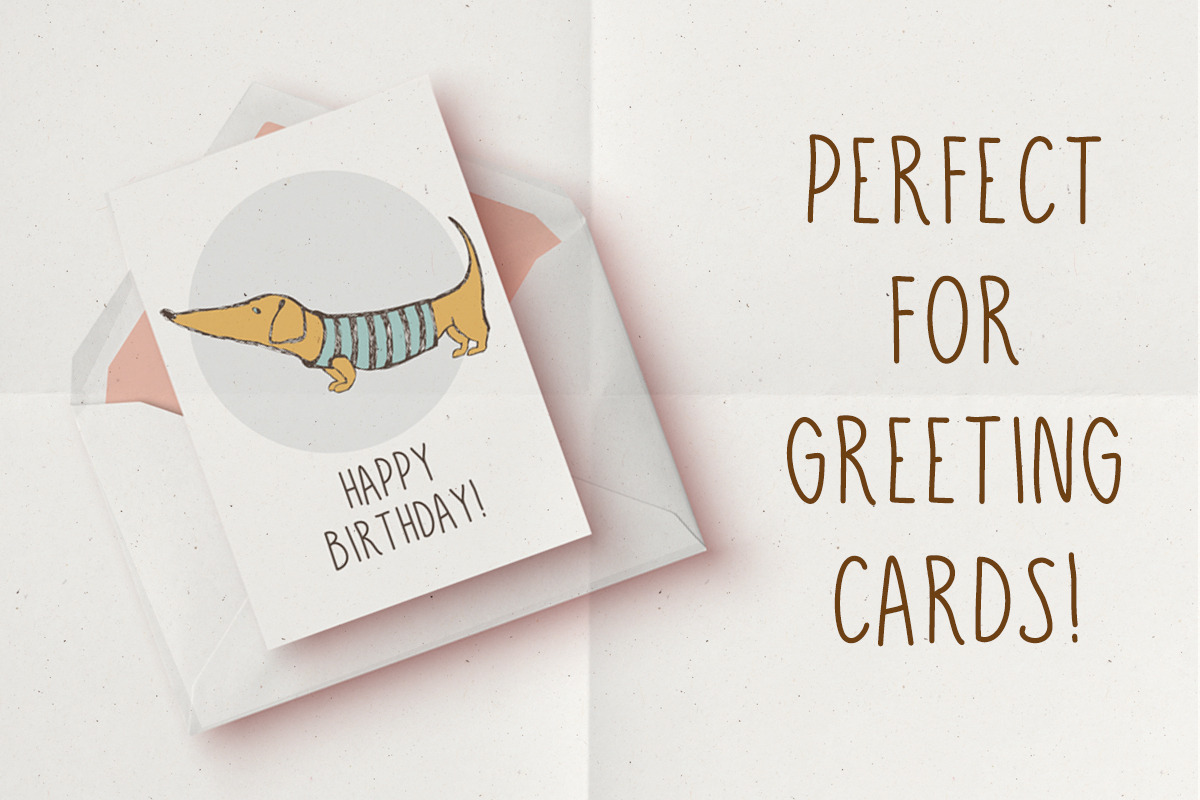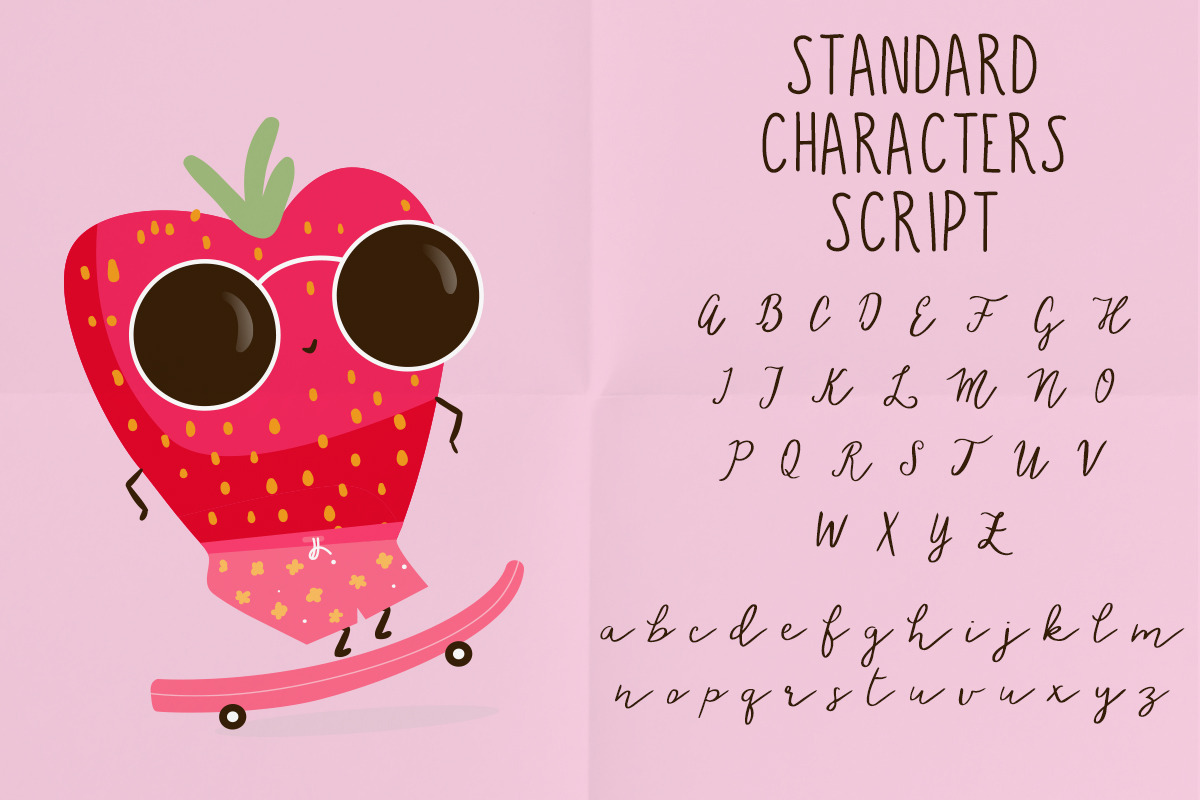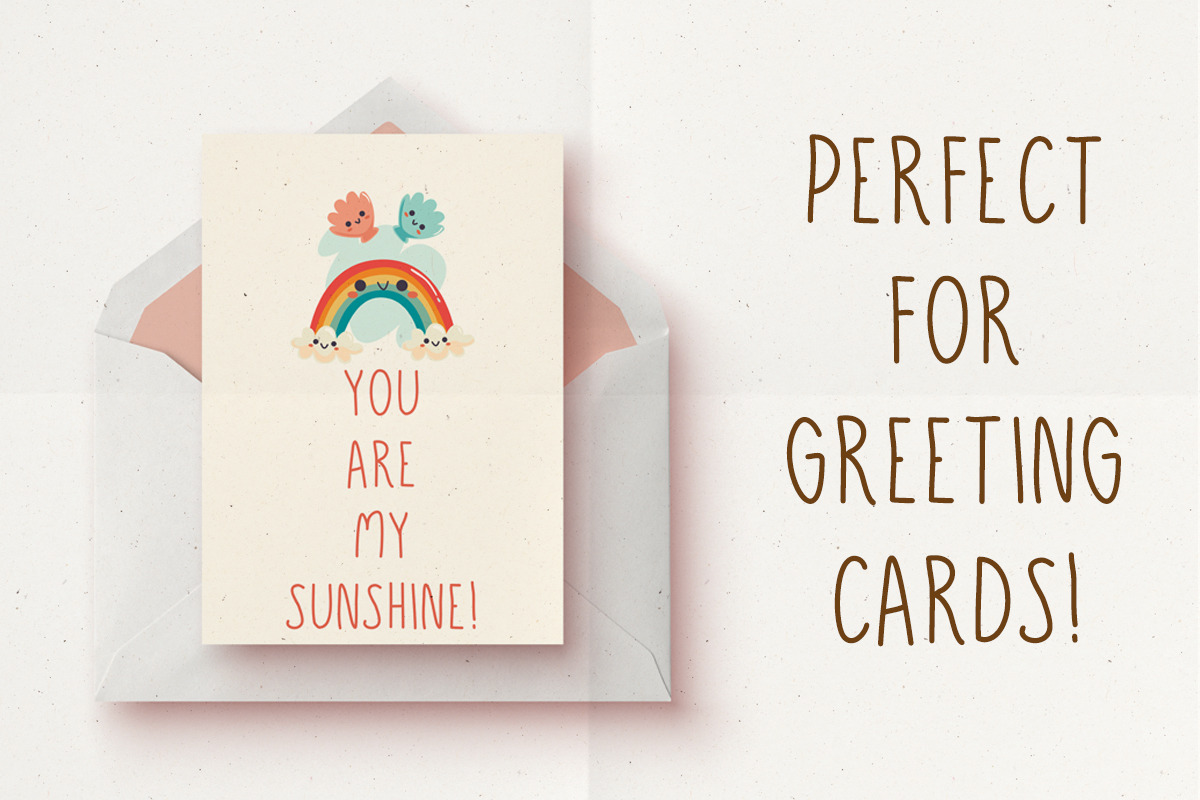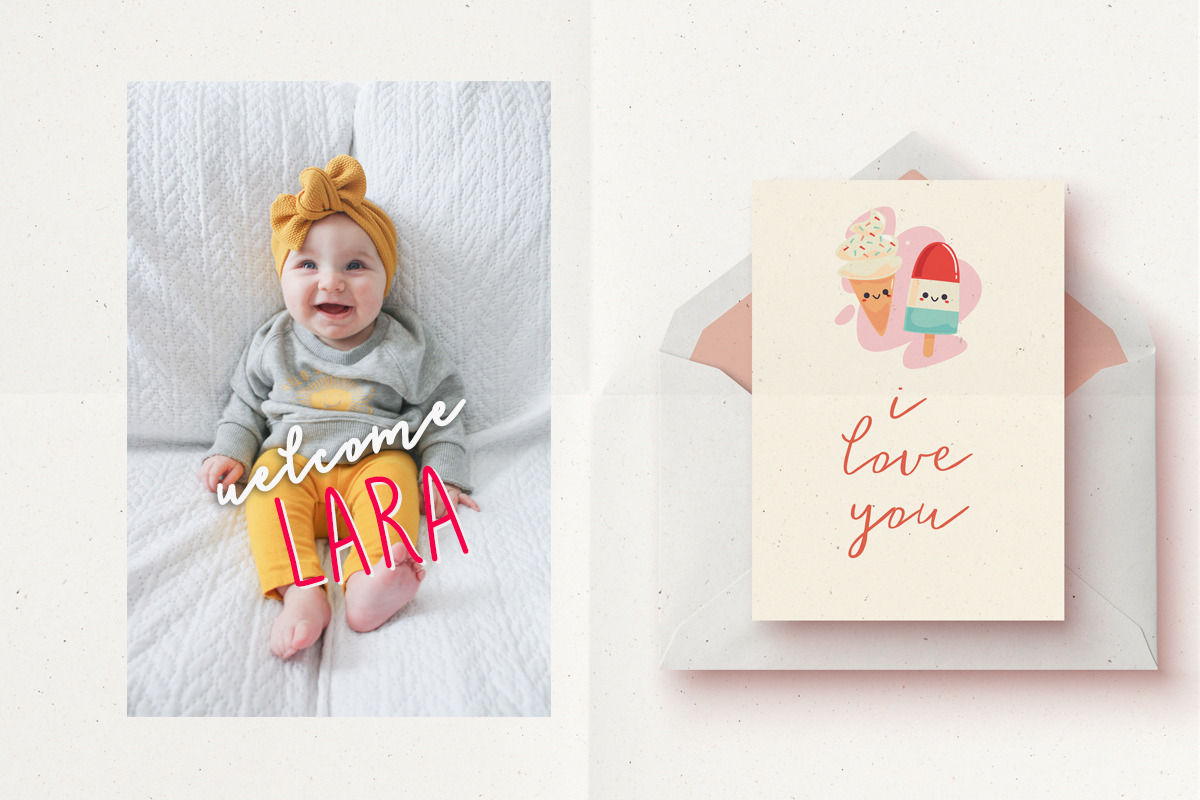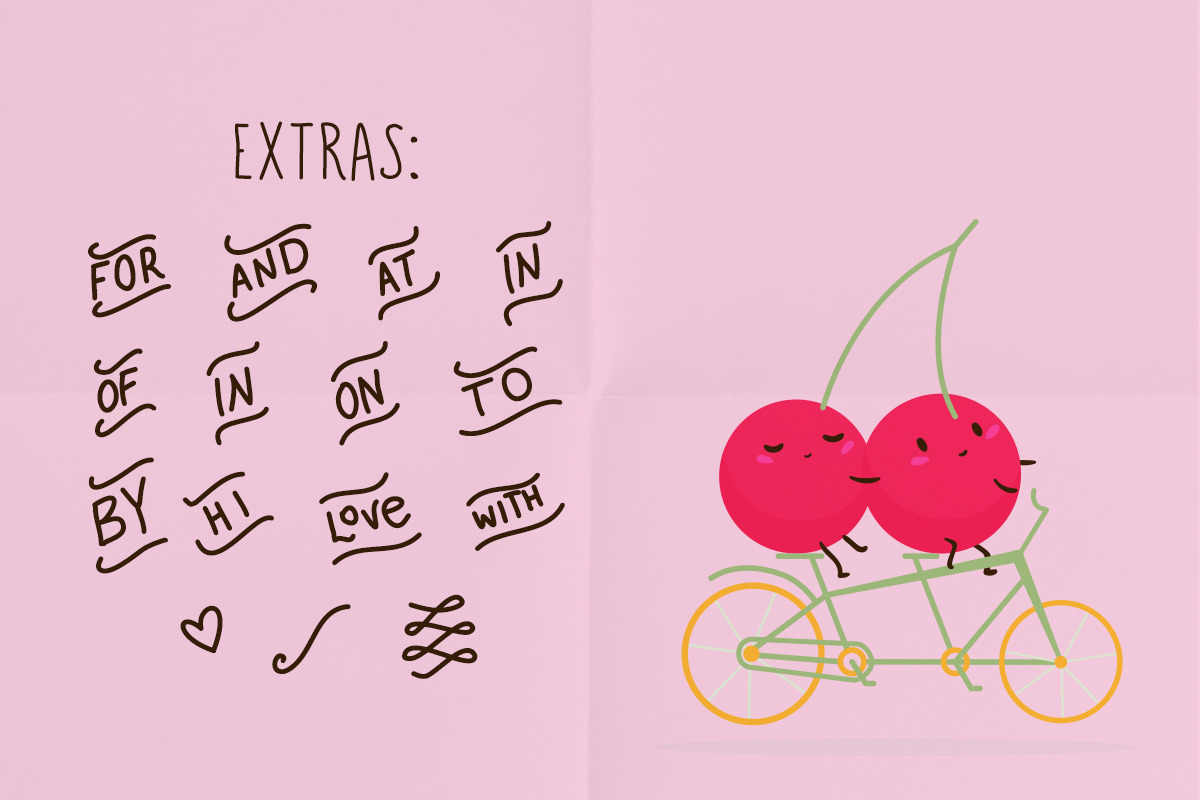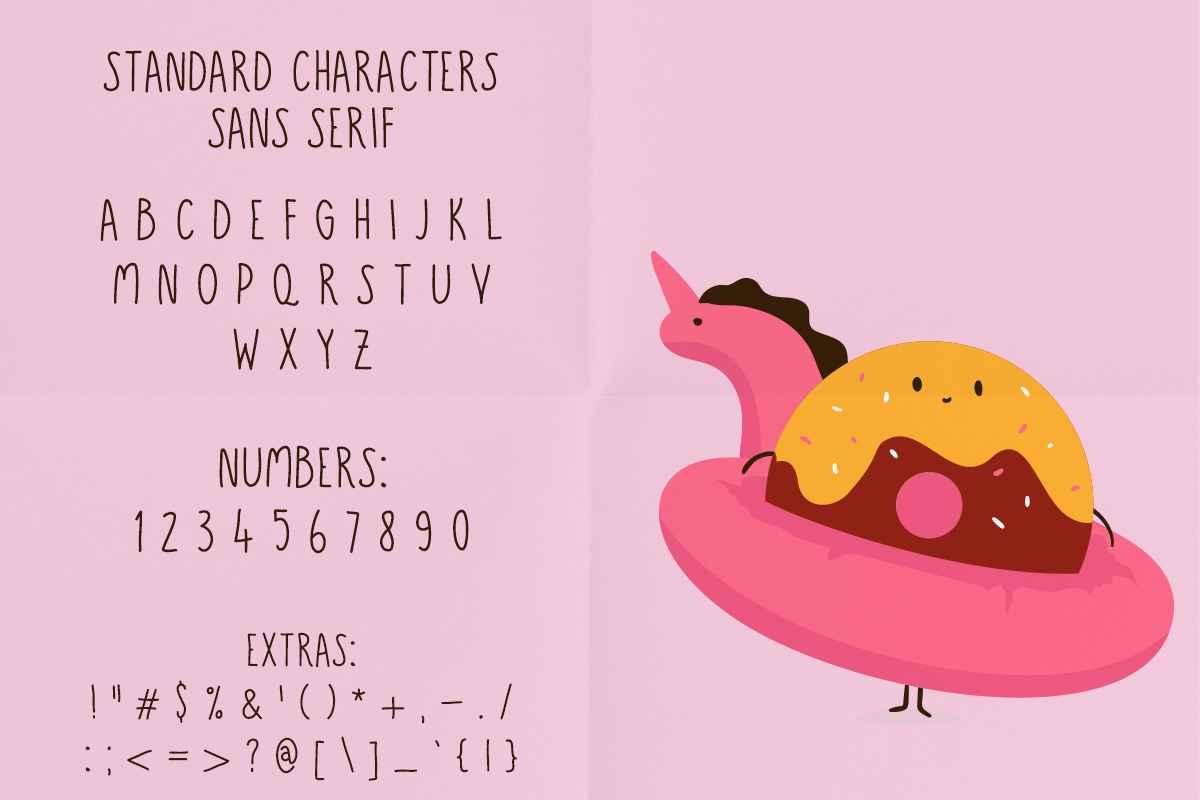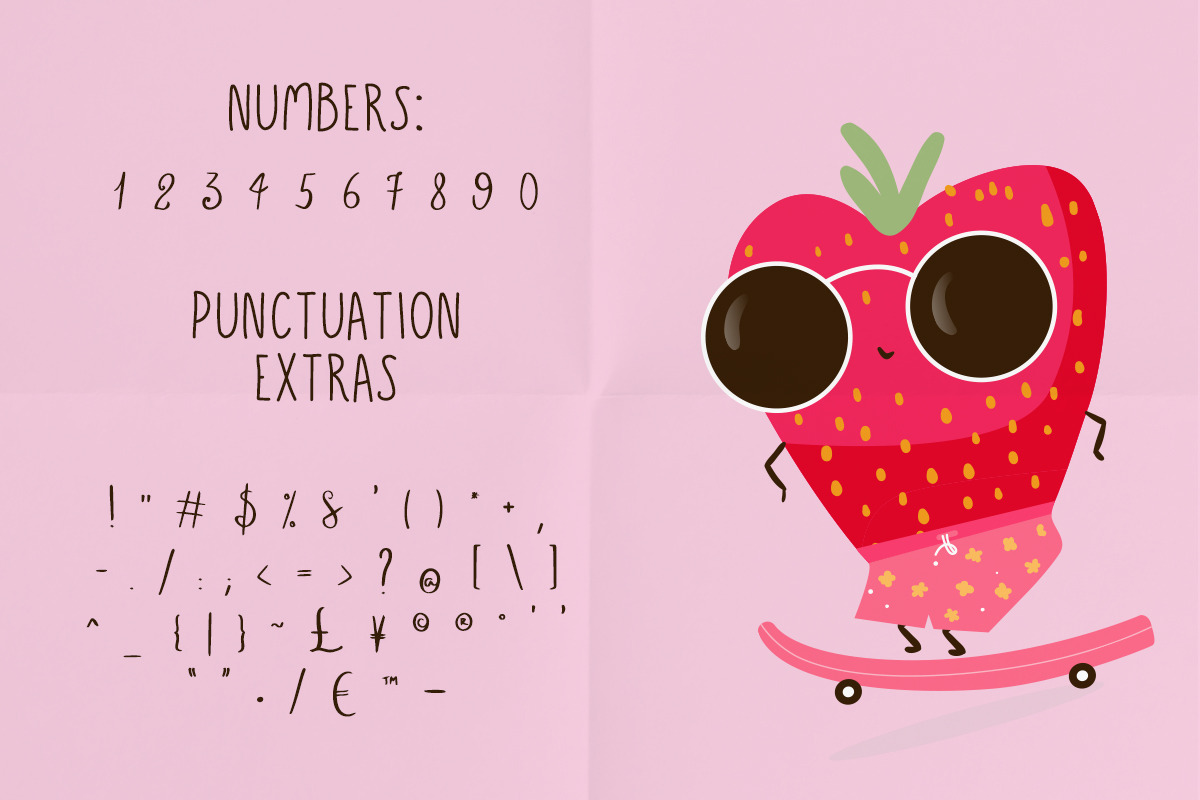
Strawberry Love: a font duo
Introducing Strawberry Love: a hand-drawn font duo!
Strawberry Love is a spectacular duo font (sans serif and script). Incredibly versatile, this font fits a wide pool of designs, elevating them to the highest levels. Add this font to your favorite creative ideas and notice how it makes them come alive!
This font is perfect for:
• social media and more!
As the nature of the characters is hand-drawn some "wonky" lines might be found which helps to add another touch of organic in the font that resonates with my style!